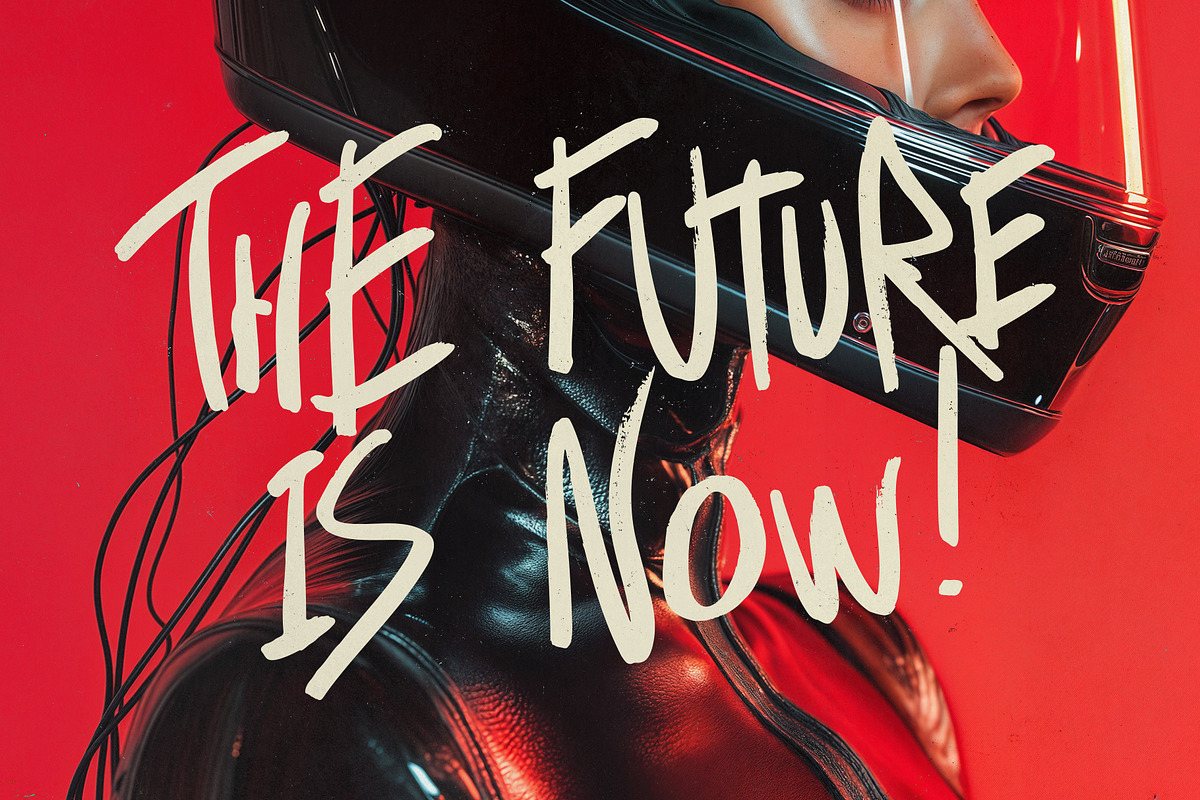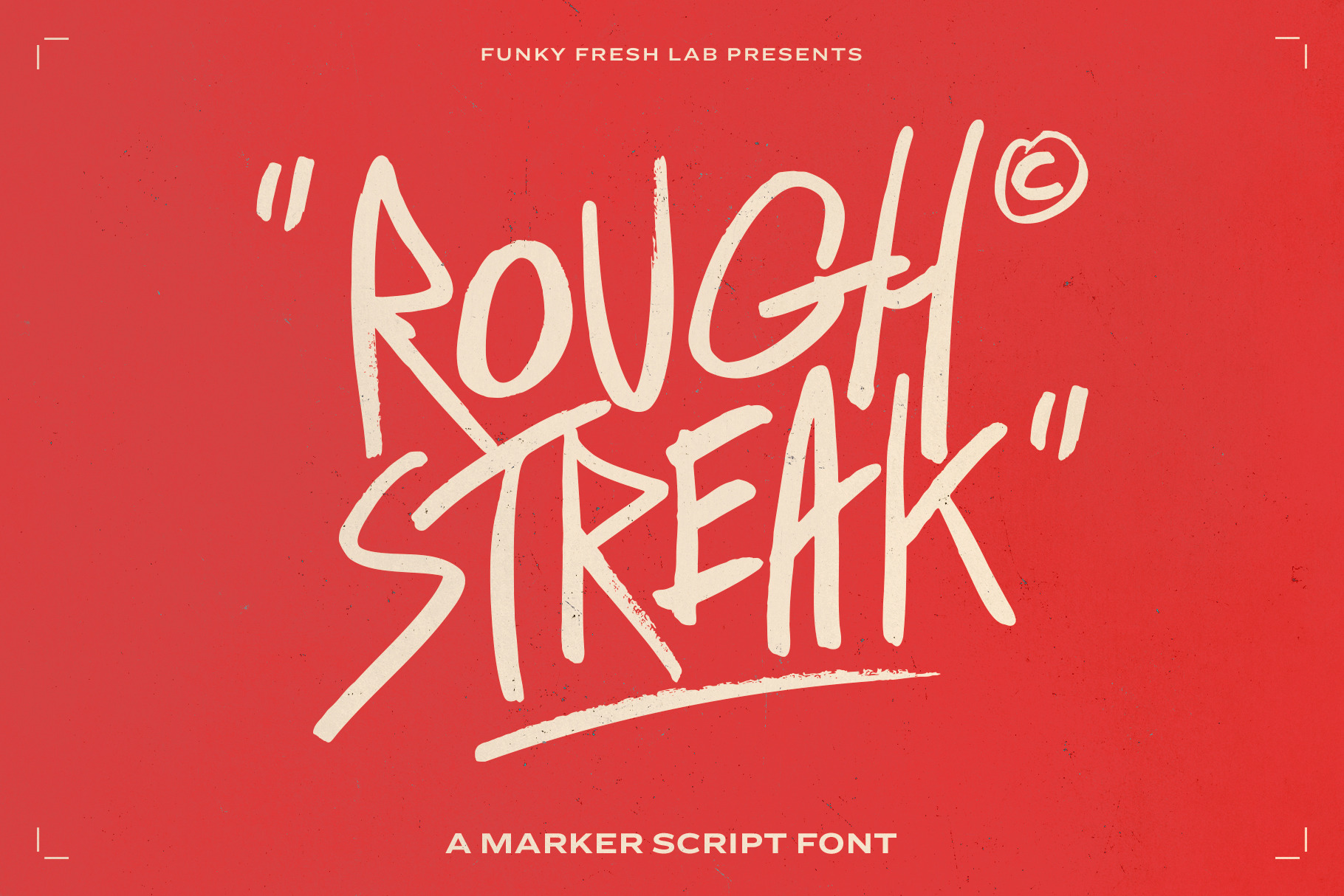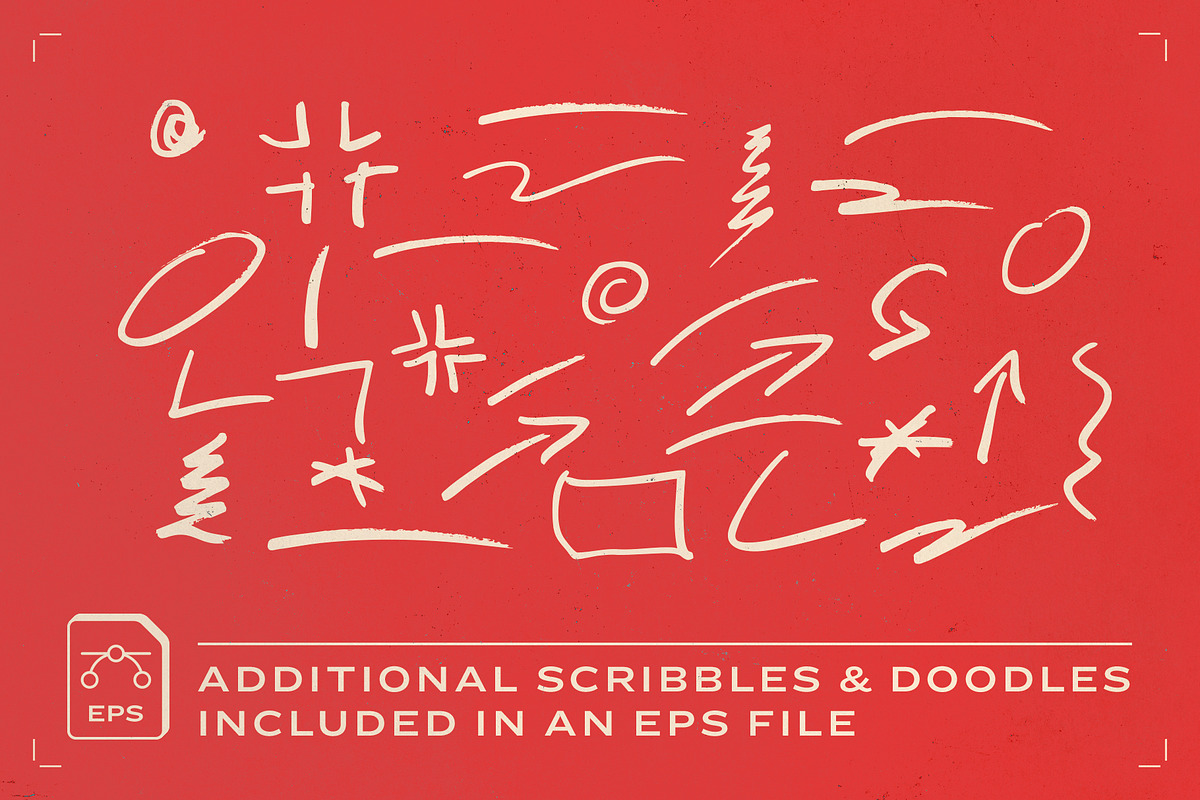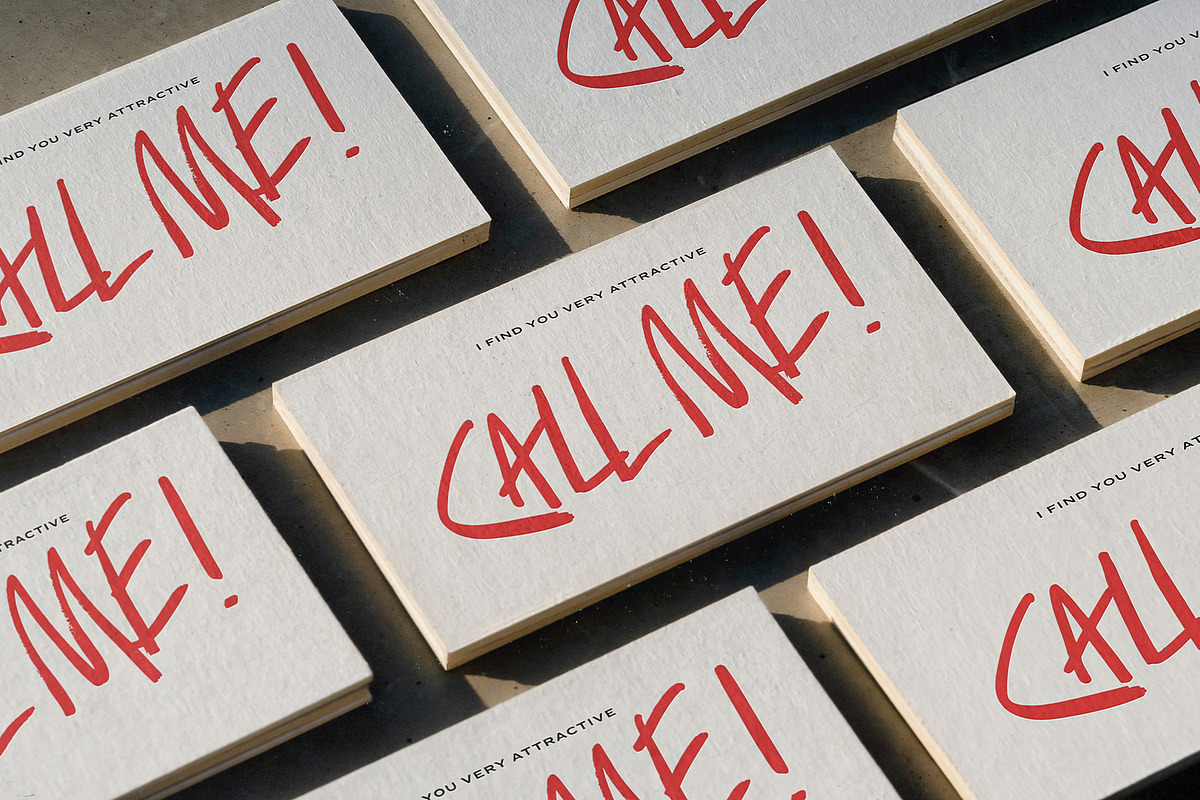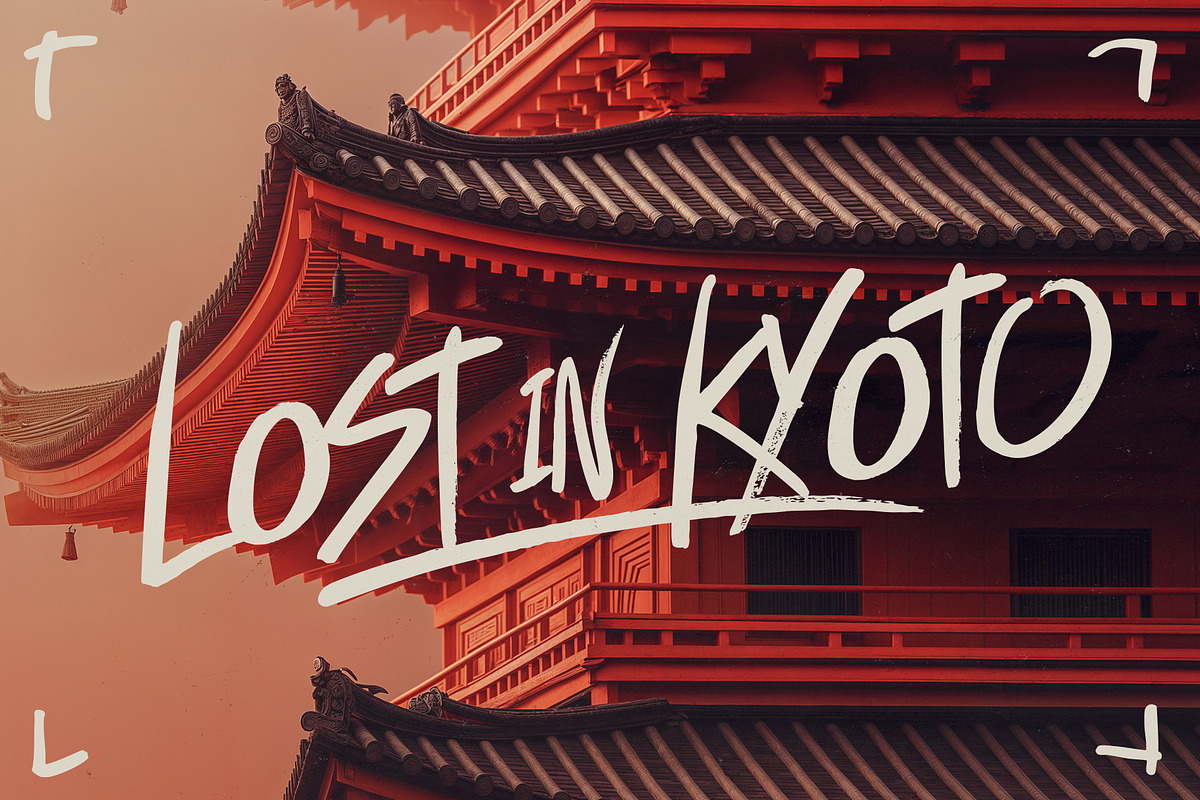
Rough Streak - Marker Font
Introducing Rough Streak, a dynamic, hand-drawn marker font that captures the essence of chaotic energy. Each letter’s got its own vibe, with uneven heights to keep things feeling raw, real, and full of attitude.
We're not here to tell you what to do with it—that’s up to you. You know best how to make it work, so go ahead and push the limits.
The lowercase set is all about alternatives, with letters that are smaller and a little softer. It also packs all the punctuation you need, plus a full set of accented characters to cover most languages. (If we missed yours, just let us know—we’ve got you.)
Oh, and just to make sure you’ve got everything, it also comes with an .EPS file jam-packed with swashes, lines, and doodles to take your designs to the next level.